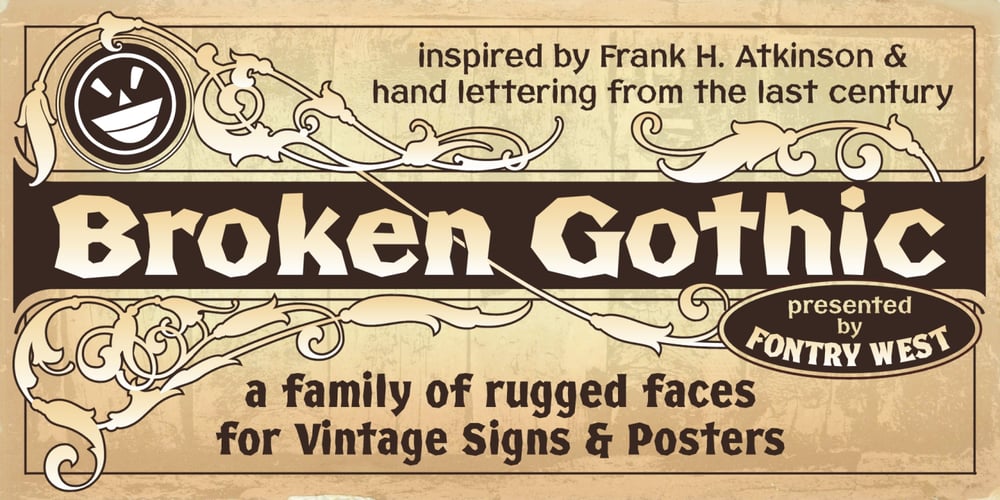
FHA Broken Gothic Font Family was designed by Michael Gene Adkins, James L. Stirling and published by Fontry West. FHA Broken Gothic contains 6 styles and family package options. More than a century ago, Frank H. Atkinson presented this hand lettered style as Broken Poster. It was one of a hundred styles he demonstrated in his manual on sign painting. Even before his book was published (and certainly after), Broken Poster was a favorite with sign painters and letterers. It has graced show cards and movie posters, signs and windows displays, and advertisements of all varieties. We presented the our first digital revival of this classic in 2000. It is long overdue for an upgrade. Broken Gothic expands the basic Broken Poster to four weights, two specialty formats and some cool layed effects. The language base includes Greek, Cyrillic, Latin A, and some of Latin B and Latin Extended. There are also some nice alternates and ligatures. All weights are quite suited to posters, headlines, display copy, web headers, etc. At first glance, Broken Gothic may seem to have limited uses. Give it a chance and it will surprise you. Broken shouts out that there is a sale, a giant monster or the end of the world. Broken Gothic is comfortable in a wide range of themes and applications from zombie movie titles to salsa jar labels. While I can’t recommend it for text, Broken is great for headers, banners, signs, titles, product presentation and other display applications. When you need a rough customer, Broken Gothic fills the bill.